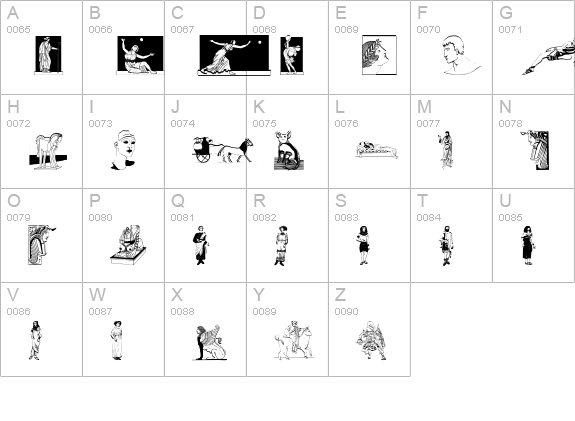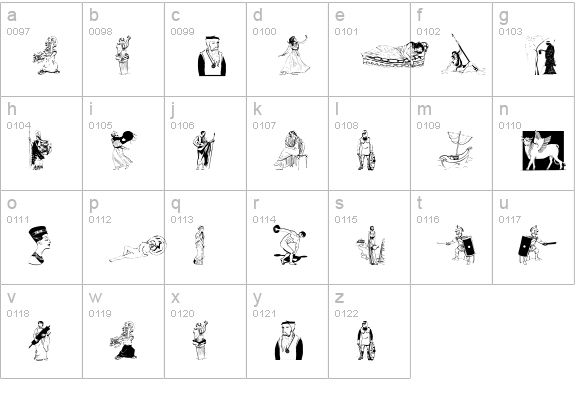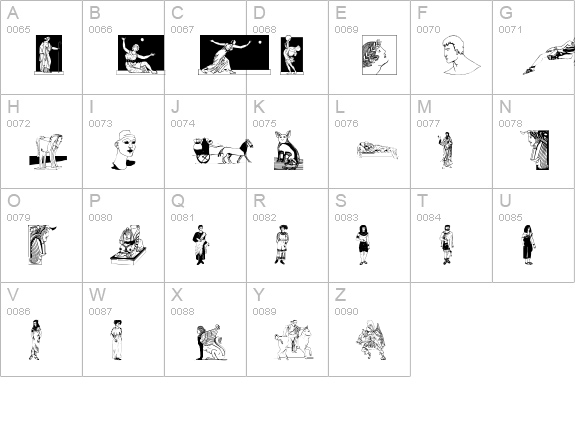
ClassicBats Font Details
Introducing ClassicBats font - a timeless and elegant typeface that brings a touch of nostalgia and sophistication to your designs. With its intricate details and vintage charm, ClassicBats is perfect for adding a classic touch to any project. This font features a collection of beautifully crafted ornamental elements inspired by traditional typography, making it ideal for creating eye-catching headlines, logos, invitations, and more. The versatile design of ClassicBats allows you to mix and match different elements to create unique and stylish compositions. Best of all, ClassicBats is available for free download at FontsMarket.com. Whether you're a designer looking to add a touch of elegance to your work or a hobbyist creating custom designs for personal projects, ClassicBats is the perfect choice. Download this stunning font today and elevate your designs with its timeless appeal.